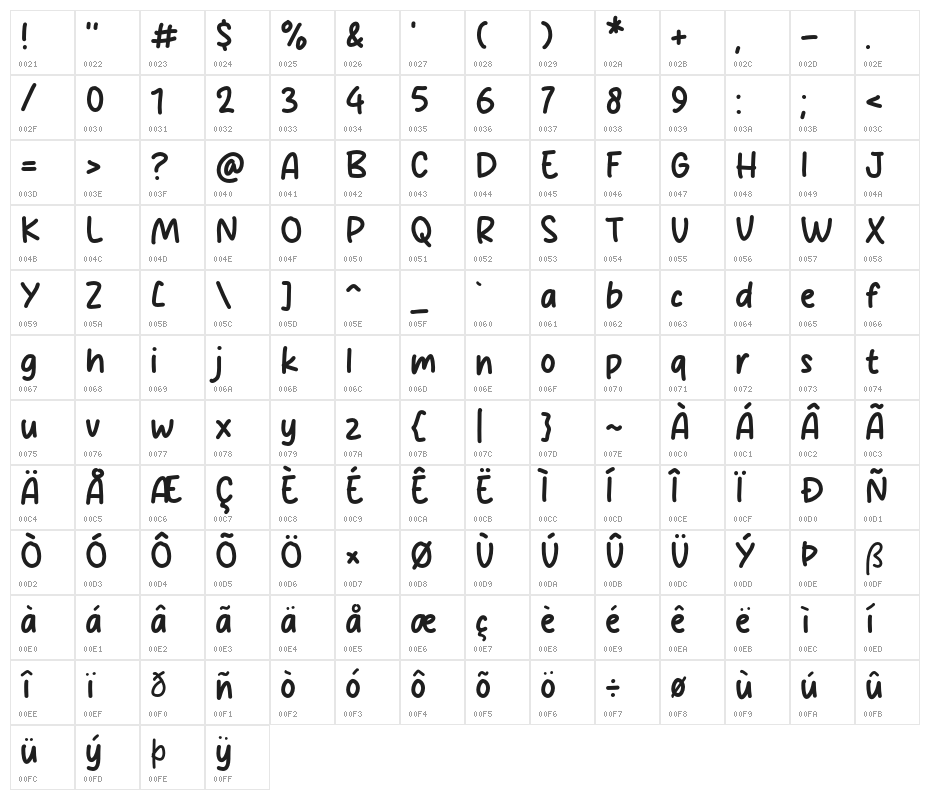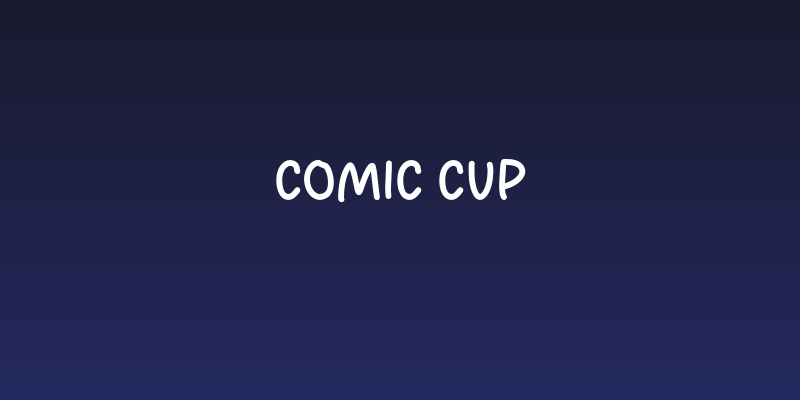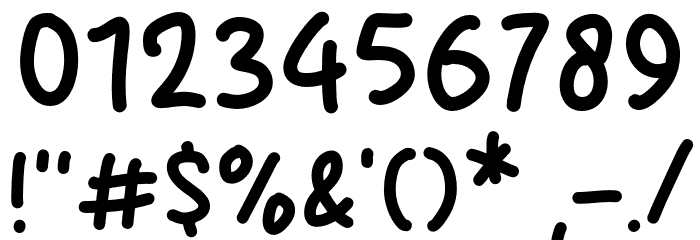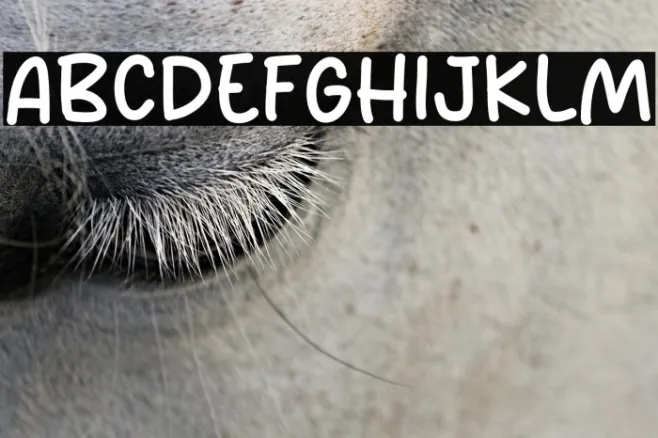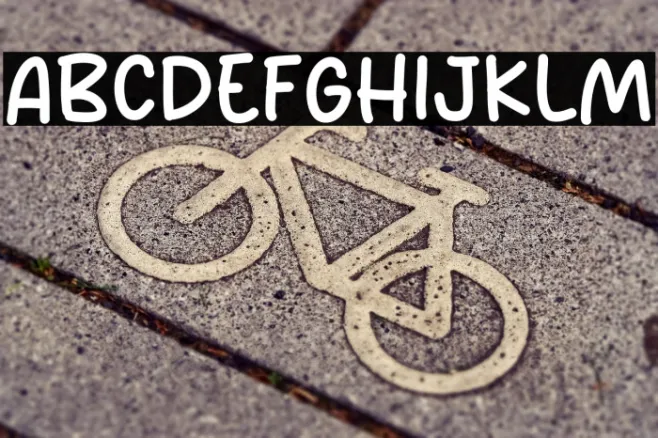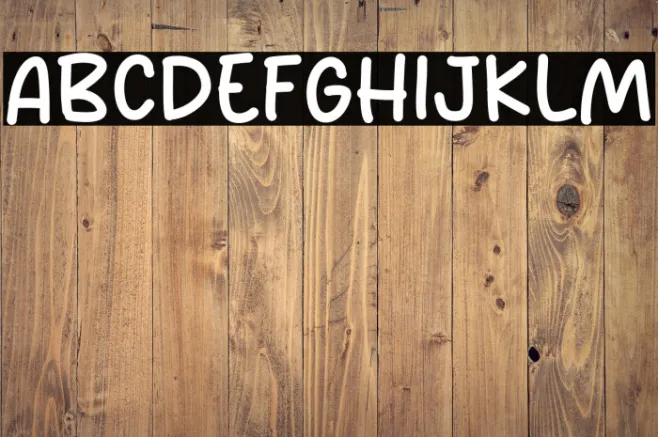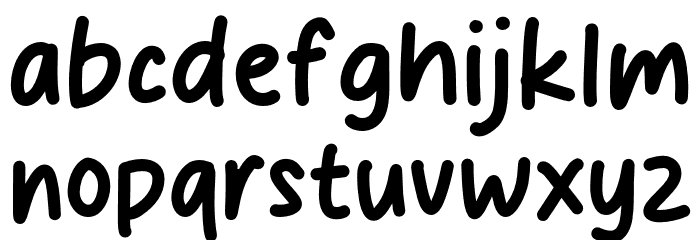
Comic Cup Font
Comic Cup Description
This playful and informal font features rounded, bold characters with a hand-drawn appearance. The letters are slightly irregular, giving it a casual and friendly vibe. The uppercase and lowercase letters are well-balanced, with consistent stroke thickness throughout. The numbers and special characters maintain the same whimsical style, making it suitable for projects that require a lighthearted and approachable feel. The font's design is reminiscent of comic book lettering, making it ideal for creative and fun applications.